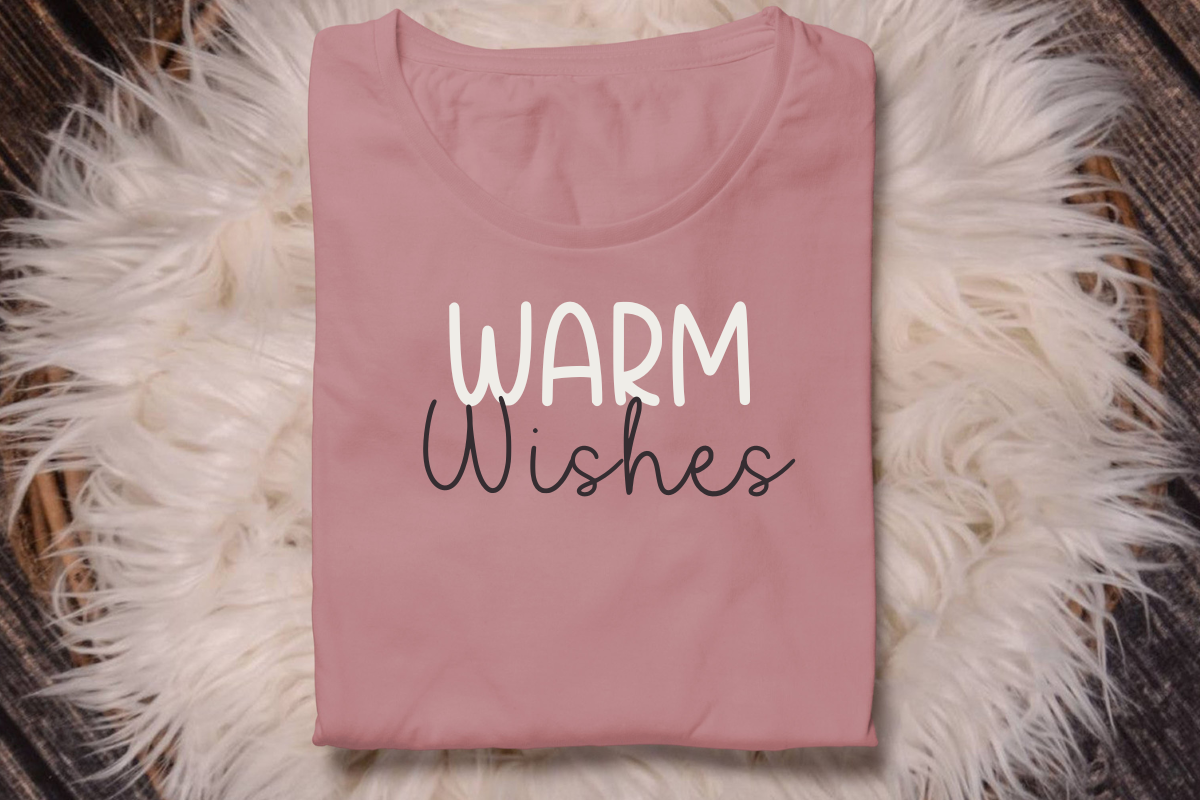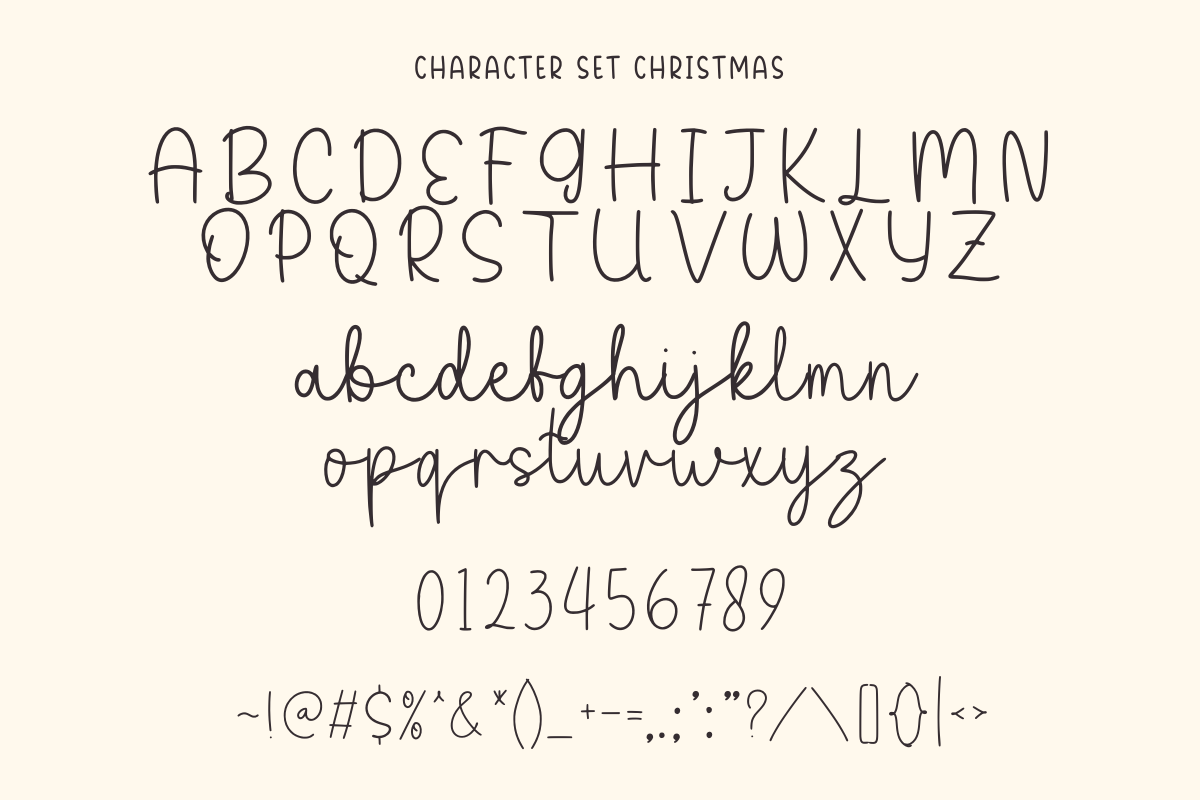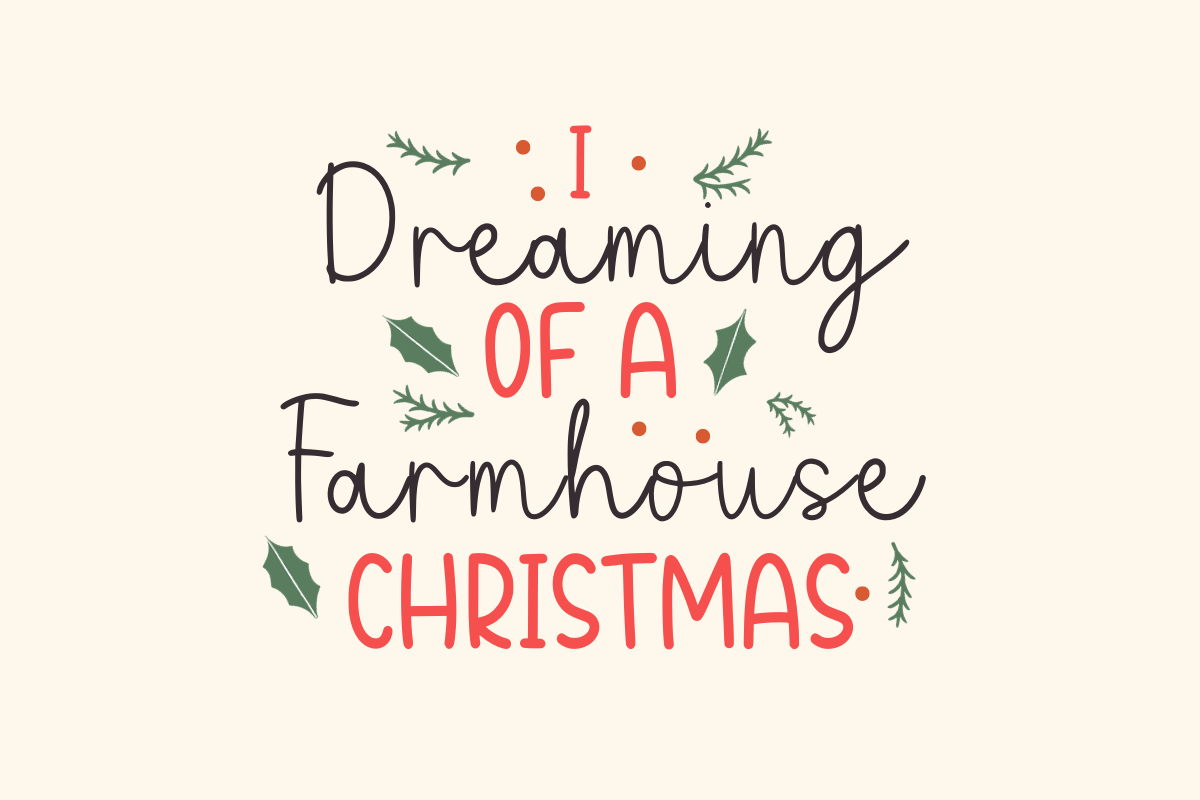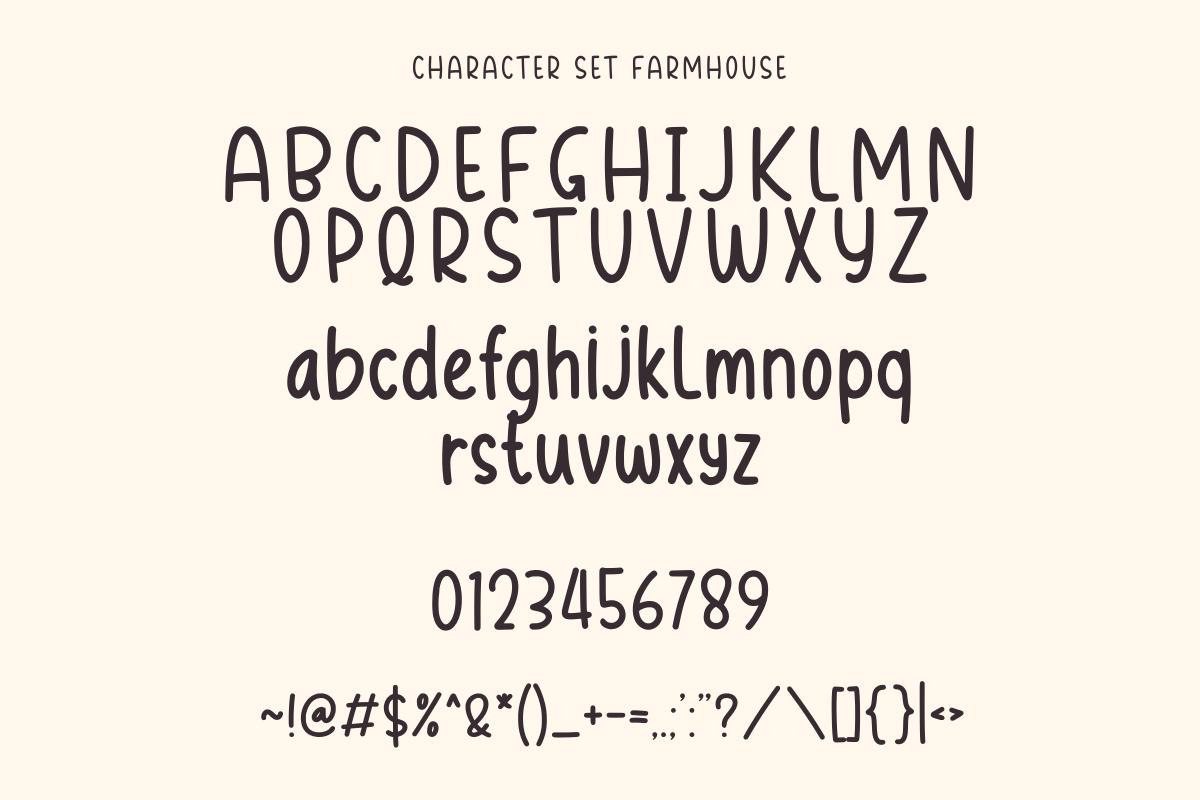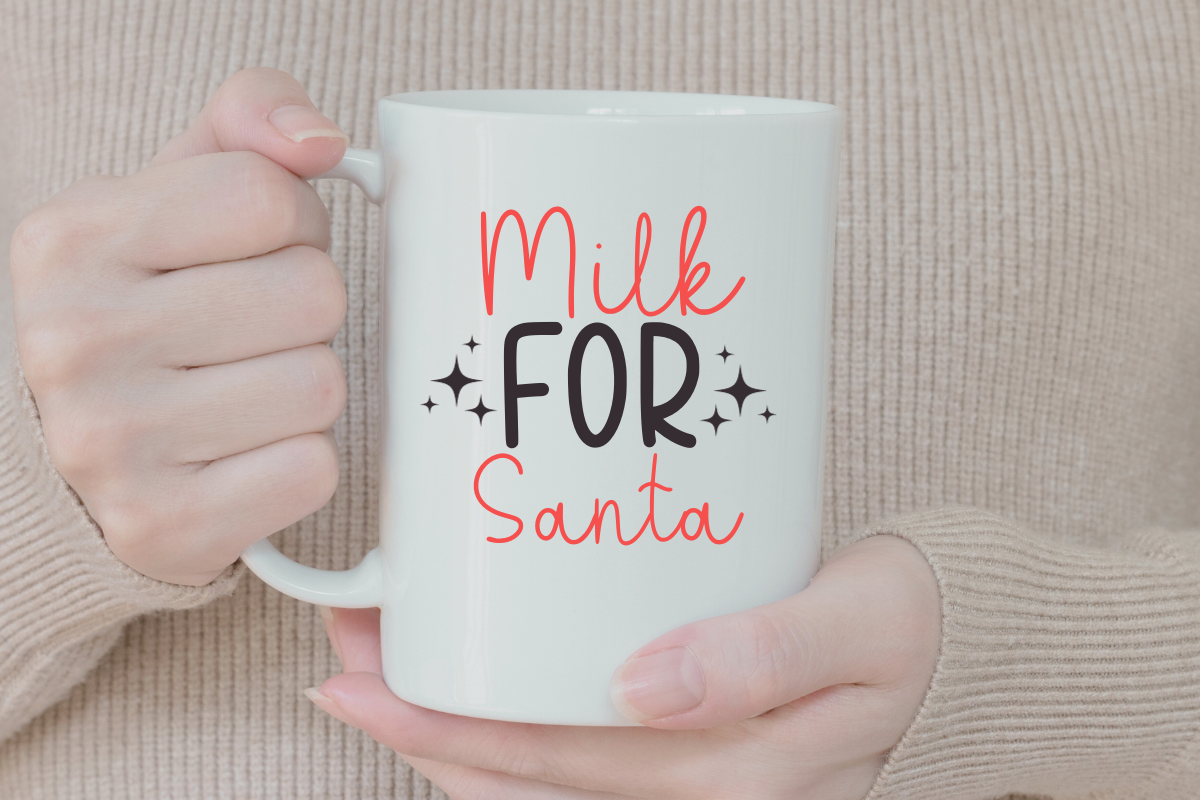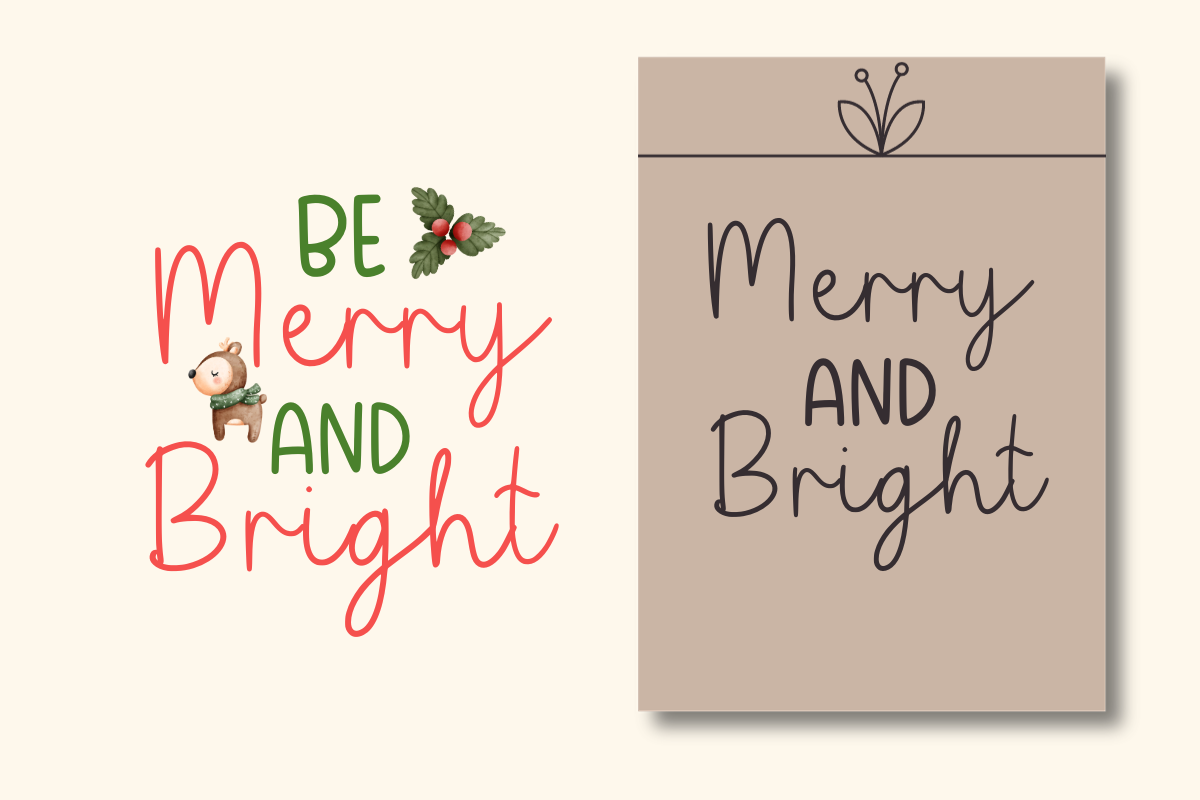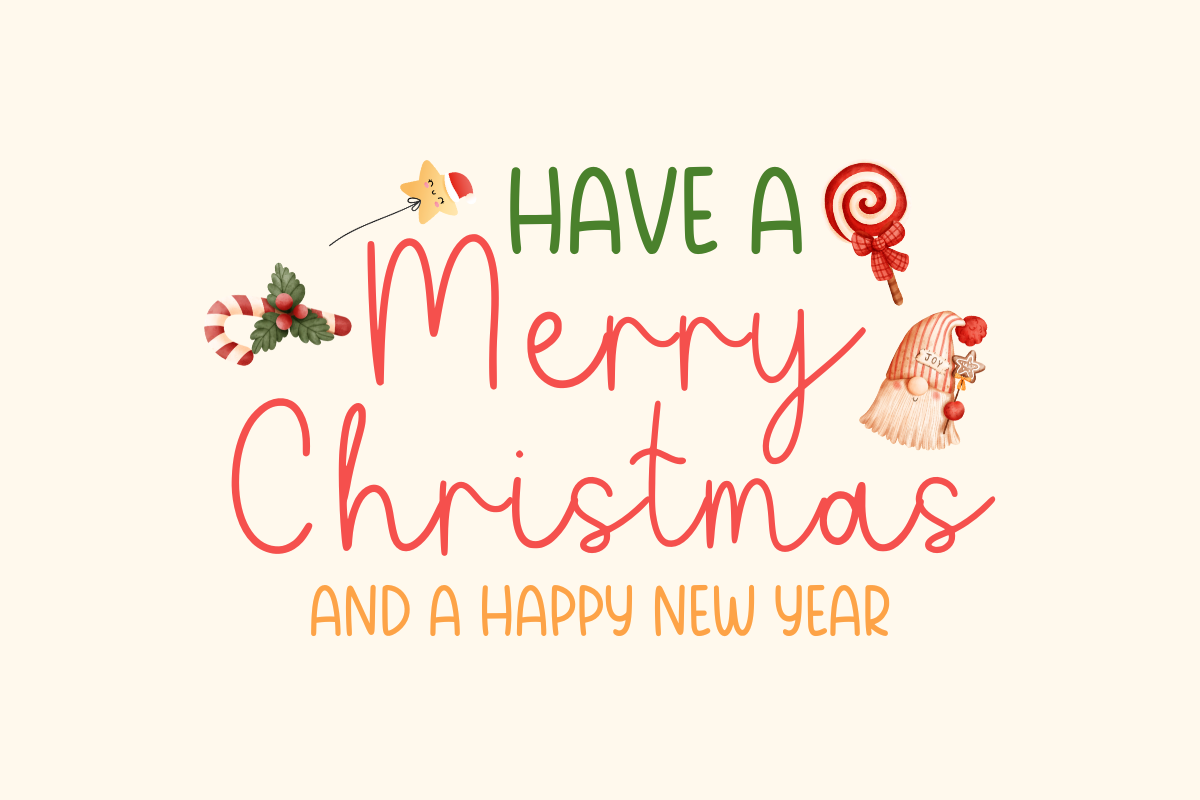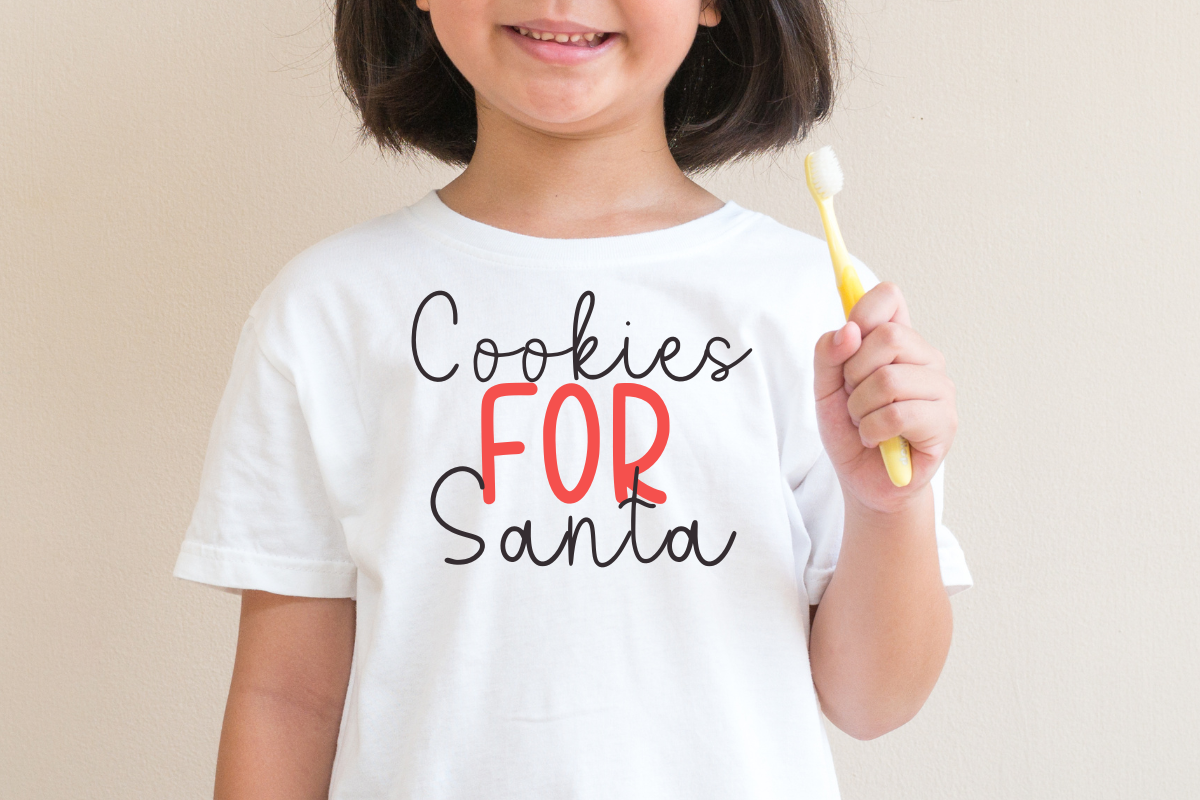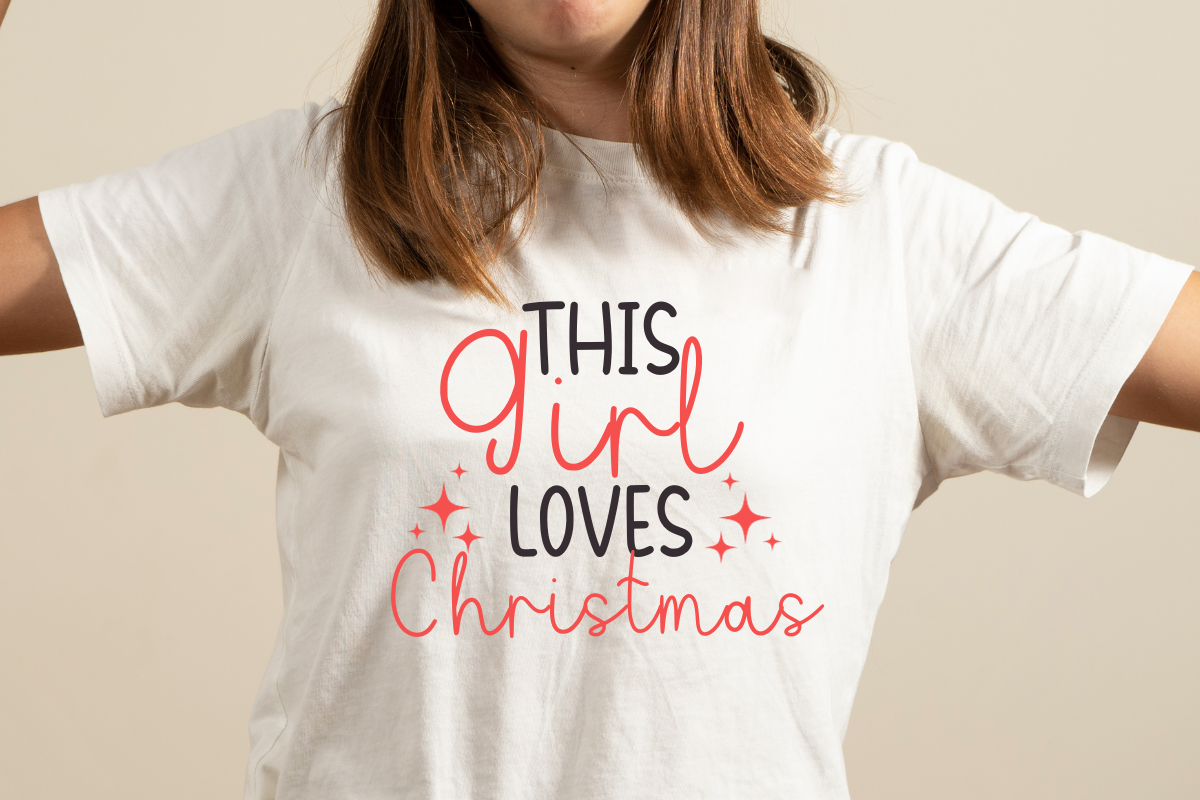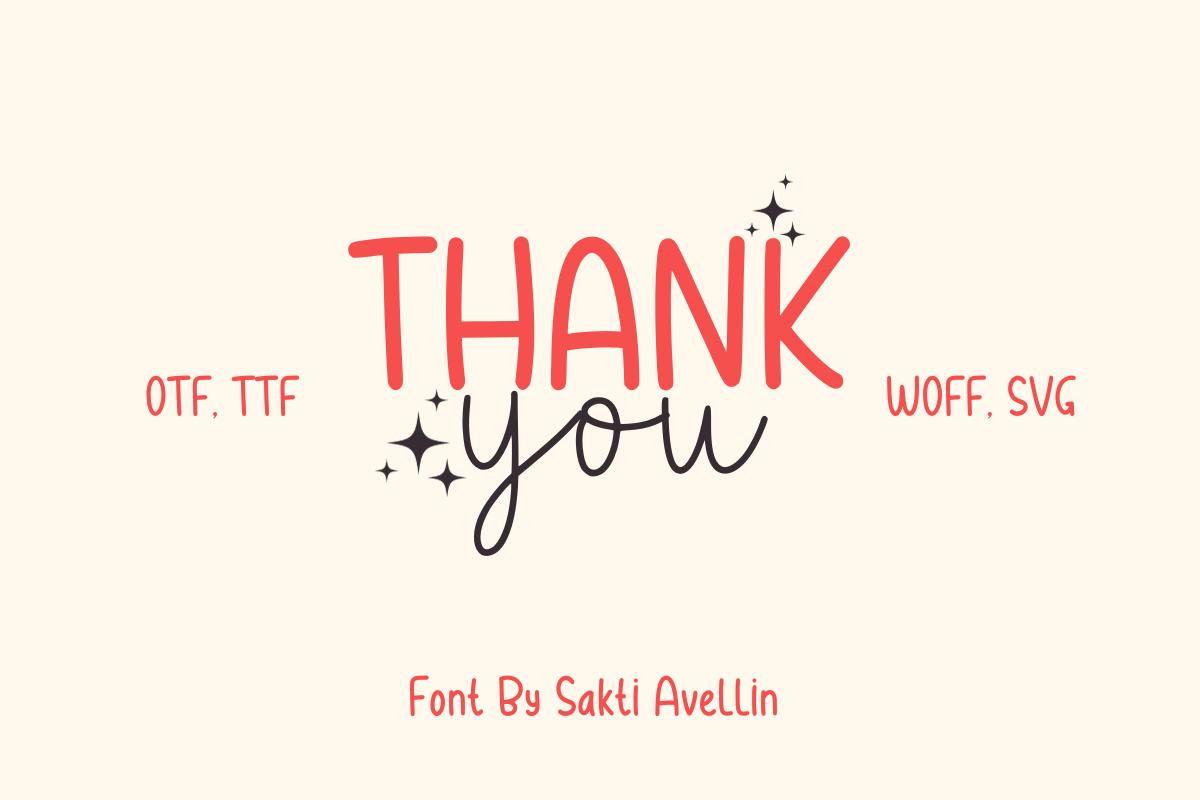
Farmhouse Christmas
Introducing Farmhouse Christmas, a delightful handwritten font duo that seamlessly blends monoline and handwritten script. Ideal for infusing a fun, whimsical touch to your favorite quotes, enlivening t-shirts with expressive messages, adding a personalized nuance to tote bags, breathing life into greeting cards, or putting a lighthearted spin on your everyday mugs. Whatever your design needs, Farmhouse Christmas is here to help you create engaging, cheerful visuals that are sure to captivate and charm.